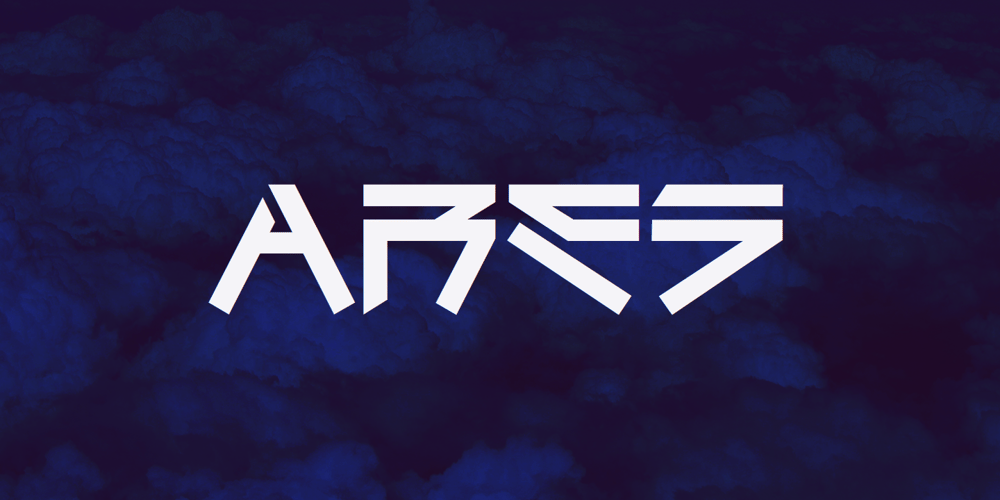
Ares Font Family was designed by Adam Jagosz and published by Adam Jagosz. Ares contains 62 styles and family package options. Ares is a crisp all-caps display typeface suitable for sci-fi logos and titles. It owes its peculiar futuristic vibe to angular, top-heavy letters that hang from the cap-height instead of sitting on the baseline.The typeface consists of six subfamilies available in 10 weights, as well as as two variable fonts of three axes: Weight [wght], ranging from 1 to 1000, Mid-height [MHGT], ranginf from 0 to 1000, Tracking [TRAK], ranging from 0 to -40. The mid-height axis affects the typeface’s waistline, including crossbars, and divides the fonts into three subfamilies: Ares Lo, Ares, and Ares Hi. These three families are solid-stroked, and the other three families are their stencil-stylized counterparts: Ares Broken Hi, Ares Broken, and Ares Broken Lo.The tracking axis is only available in the variable versions, and proportionally affects the kerning, thus helping set the type more tightly without effort.Ares supports a wide range of Latin-based orthographies, including not only European, but also Vietnamese as well as major African languages like Hausa, Fula or Ewe.